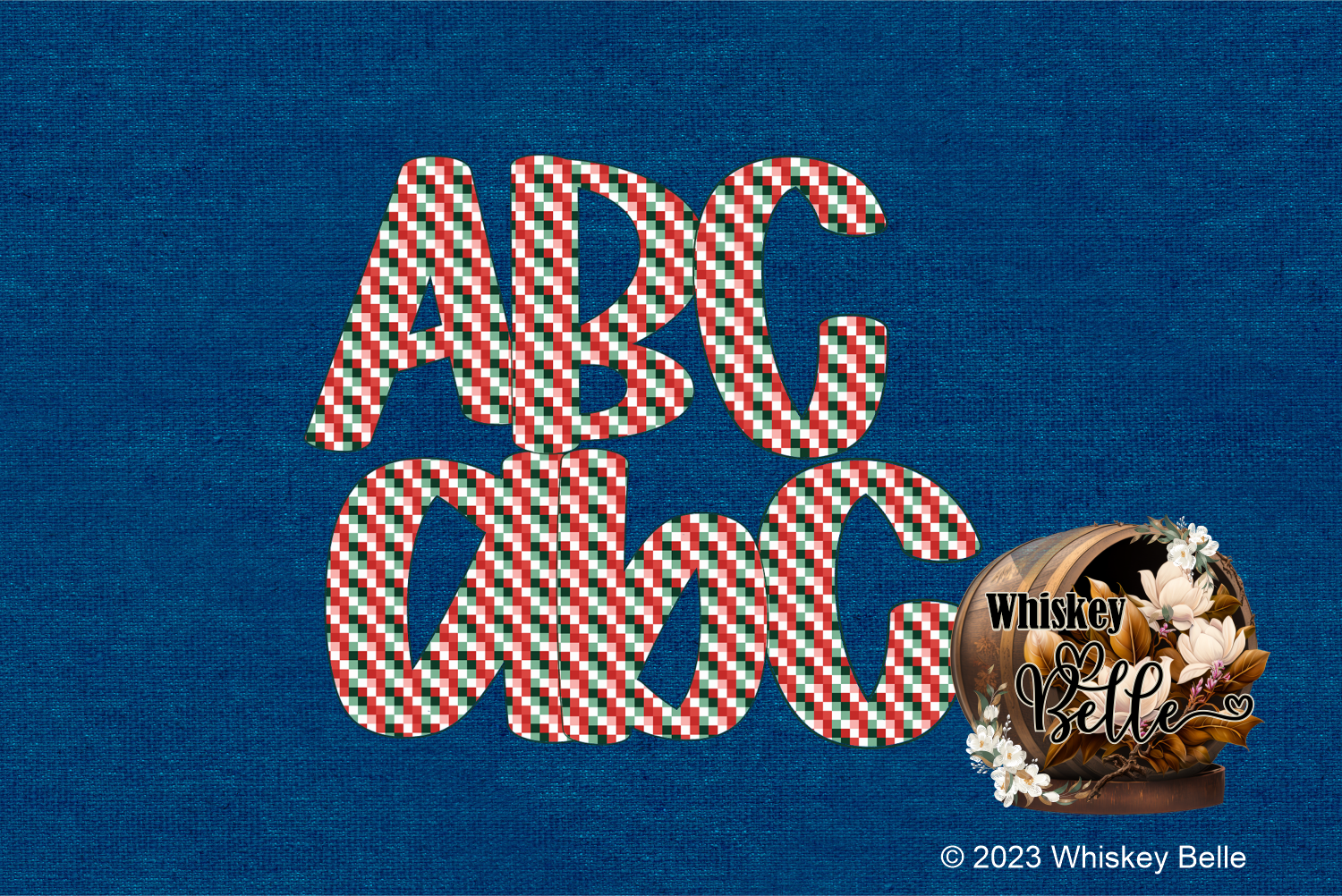
Get into the holiday spirit with this festive Christmas Preppy Alpha Set. This full alphabet features a classic red and green plaid pattern, perfect for all your Christmas crafting needs. Create personalized cards, banners, apparel, and more with this versatile digital download.
* Full alphabet included A to Z.
* Classic red and green plaid design.
* Perfect for Christmas and holiday themed projects.
* Adds a preppy and festive touch to any design.